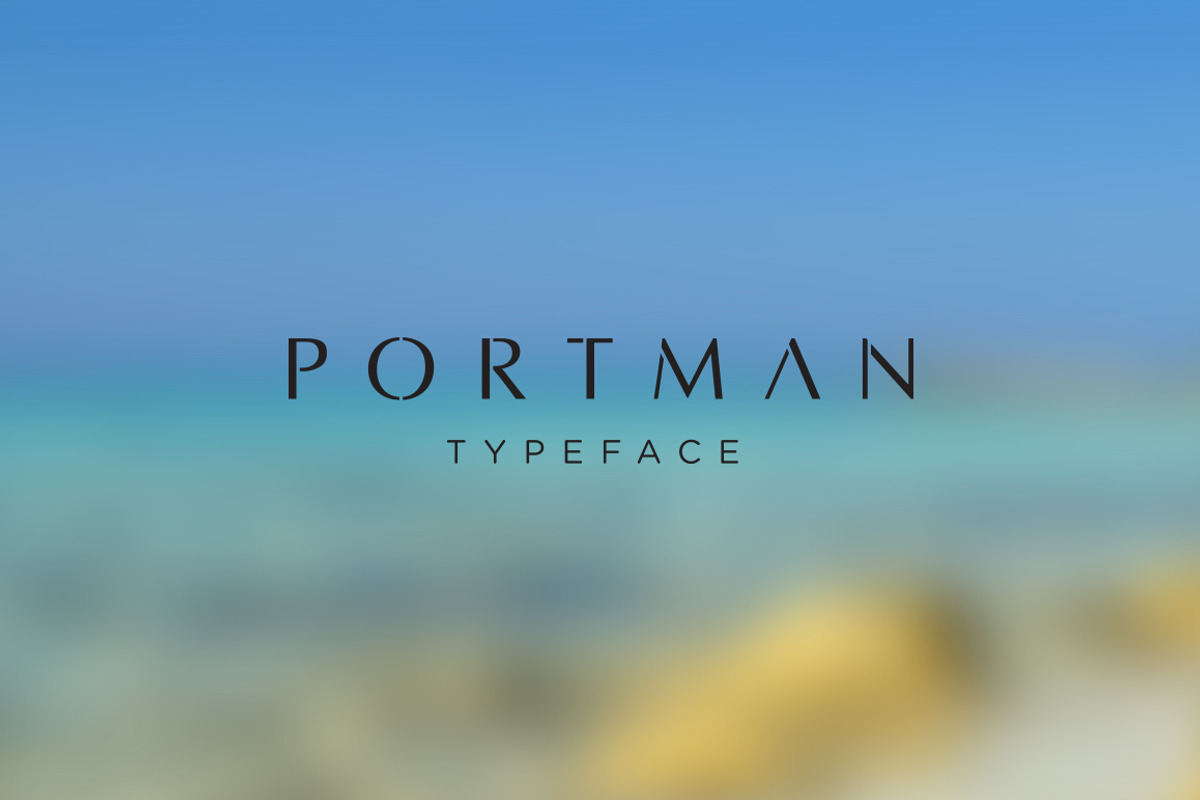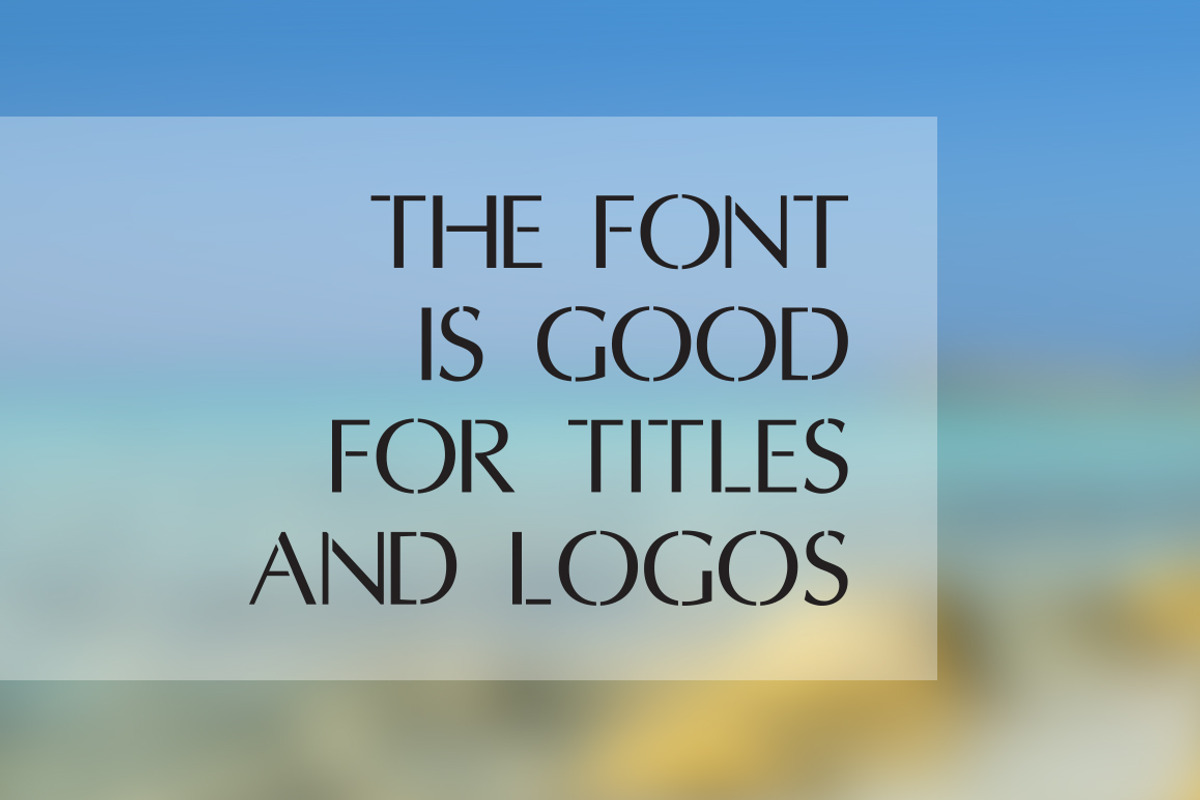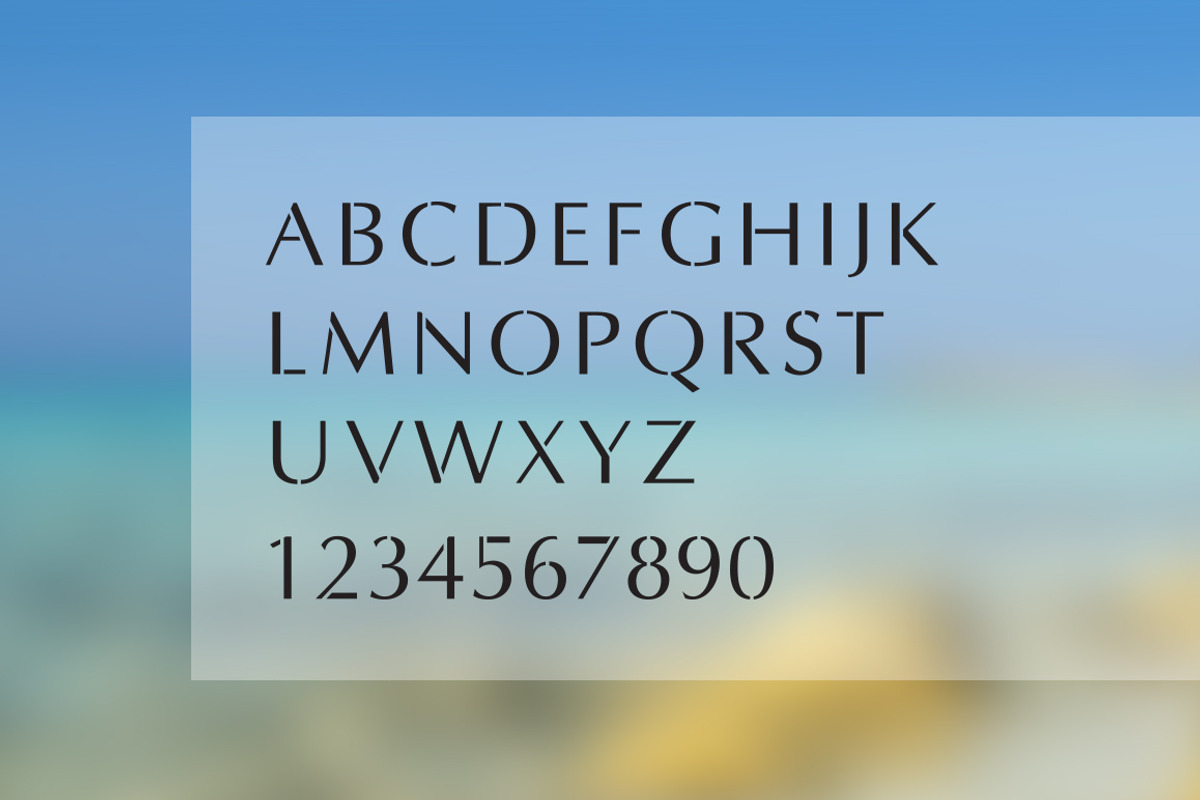
Portman Typeface
Portman Typeface by Urazovsky Design is a font selected for branding, posters, packaging, typography.
Why Portman Typeface is worth a look
Portman Typeface by Urazovsky Design fits naturally into Branding, posters, packaging, typography.